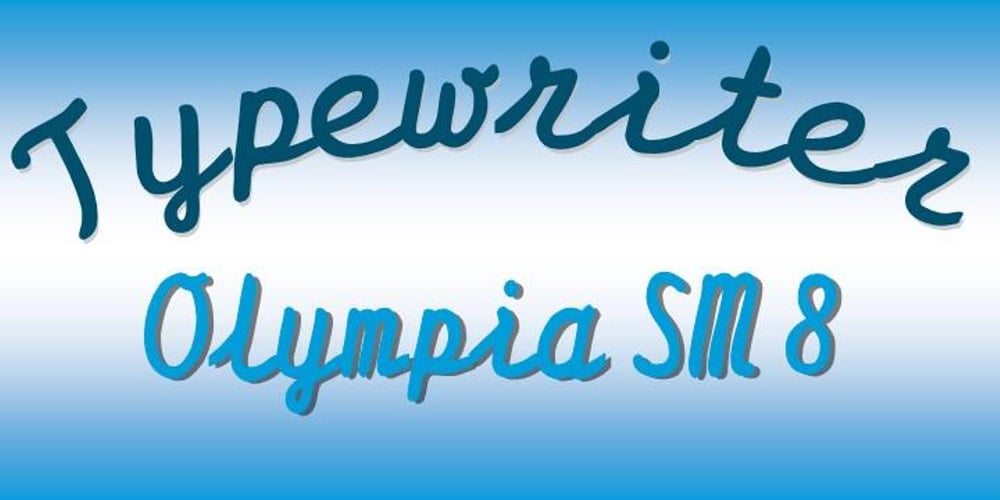
Typewriter Olympia SM8 Font Family was designed by Brett T. Johnson and published by Simeon out West. Typewriter Olympia SM8 contains 1 styles and family package options. This font, based on old Olympia SM and SF typewriters from the 50’s and 60’s provides a nice clean, yet quirky look for your documents. Being a reproduction inspired by a typewriter, it works better at smaller sizes.